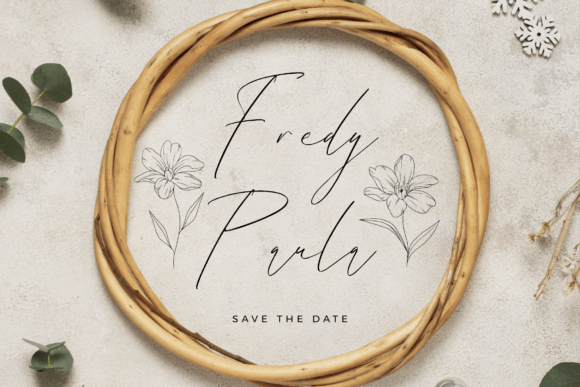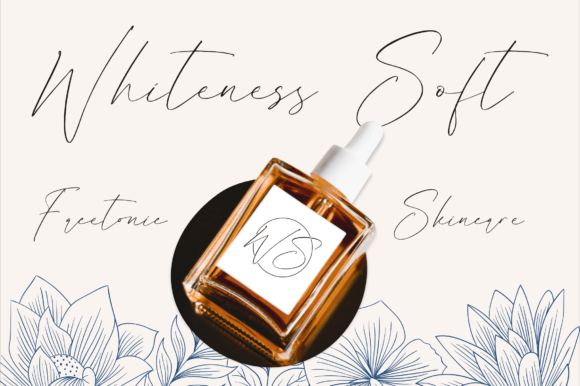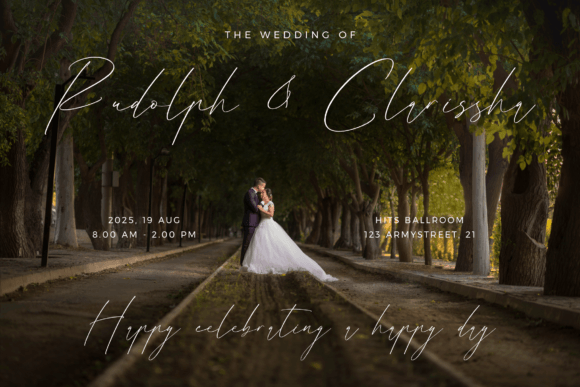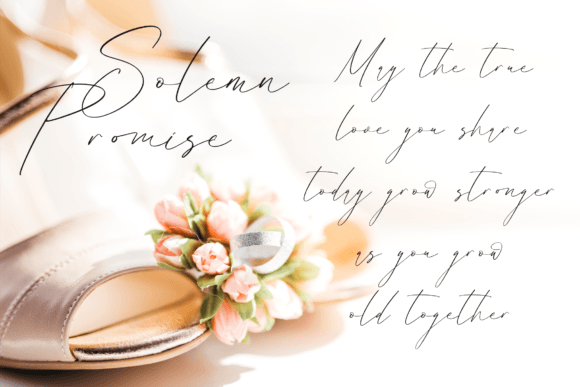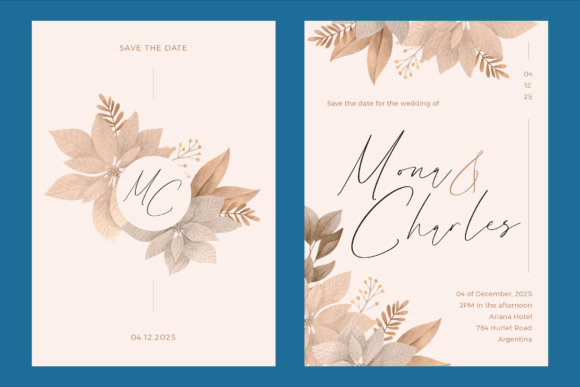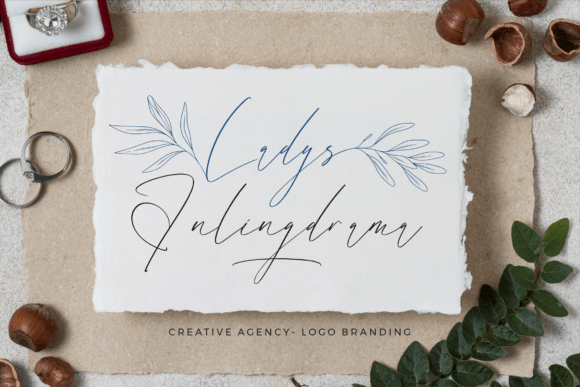
Have you ever stared at a blank canvas, searching for the perfect font to bring your design to life? It’s a moment every creative has experienced – the thrill of possibility, the fear of failure, and the promise of something truly special. And then, like a breath of fresh air, you stumble upon the perfect font.
Meet the Berallopa Stinkross Font, a stylish signature font from Letterfabric Studio, designed to elevate your projects to new heights. Whether you’re crafting logos, branding materials, or homeware designs, this font is the perfect addition to your toolkit. Its versatility and charm make it a valuable asset for designers, allowing them to add a touch of elegance and sophistication to any project.
Berallopa Stinkross Font Key Features
- Font Family: Berallopa Stinkross
- Character Set: Latin, Cyrillic, Greek
- Unique Characteristics: This font features a unique blend of organic and geometric elements, resulting in a distinctive and eye-catching design. The font includes a wide range of glyphs, including ligatures, swashes, and ornaments.
- Font Style: Available in Regular, Italic, Bold, and Bold Italic styles
Berallopa Stinkross Font Review
Overall, I’m really impressed with the Berallopa Stinkross Font. It’s a unique and quirky addition to any design project ✨. The font’s eclectic feel is perfect for adding some visual interest to headings and titles. I love how the designer has incorporated various textures and patterns to create a truly one-of-a-kind look.
Some of my favorite features of the Berallopa Stinkross Font include:
- Its versatility in various design contexts, from posters to social media graphics ✨
- The font’s excellent legibility, making it easy to read even in smaller sizes ✨
- The unique, handmade feel that adds a touch of personality to any design project ✨
However, there are a few limitations to keep in mind ⚠️:
- The font may be too busy or overwhelming for certain design projects, especially those requiring a more minimalist approach ⚠️
- The lack of a bold weight may limit its use in certain contexts, such as headings or titles ⚠️
Overall, I’m a big fan of the Berallopa Stinkross Font and would highly recommend it to designers looking for a unique and eye-catching addition to their projects. Just be mindful of its limitations and use it thoughtfully to get the best results.
The Berallopa Stinkross font is ideal for:
1. Creative and artistic projects.
2. Titles and headings.
3. Branding and marketing materials.
4. Designing unique and eye-catching graphics.
Alternatives to Berallopa Stinkross Font
Cream Soda is a distressed, hand-drawn font that works well for creative projects, such as posters, flyers, and packaging. It has a similar playful, vintage feel to Berallopa Stinkross Font, but with a more refined and elegant appearance.
Comparison: While Berallopa Stinkross Font has a more rugged, stinky feel, Cream Soda is more refined and polished. Suitable for designs where a more sophisticated look is desired.
Dustismo Font
Dustismo is a distressed, stencil font that works well for grungy, industrial designs, such as music posters, clothing labels, and street art. It has a similar edgy, gritty feel to Berallopa Stinkross Font, but with a more raw, unpolished appearance.
Comparison: While Berallopa Stinkross Font has a more unique, stinky feel, Dustismo is more straightforward and industrial. Suitable for designs where a bold, gritty look is desired.
Unibolt Font
Unibolt is a bold, sans-serif font that works well for modern, minimalist designs, such as logos, business cards, and brochures. It has a similar strong, industrial feel to Berallopa Stinkross Font, but with a more clean and simple appearance.